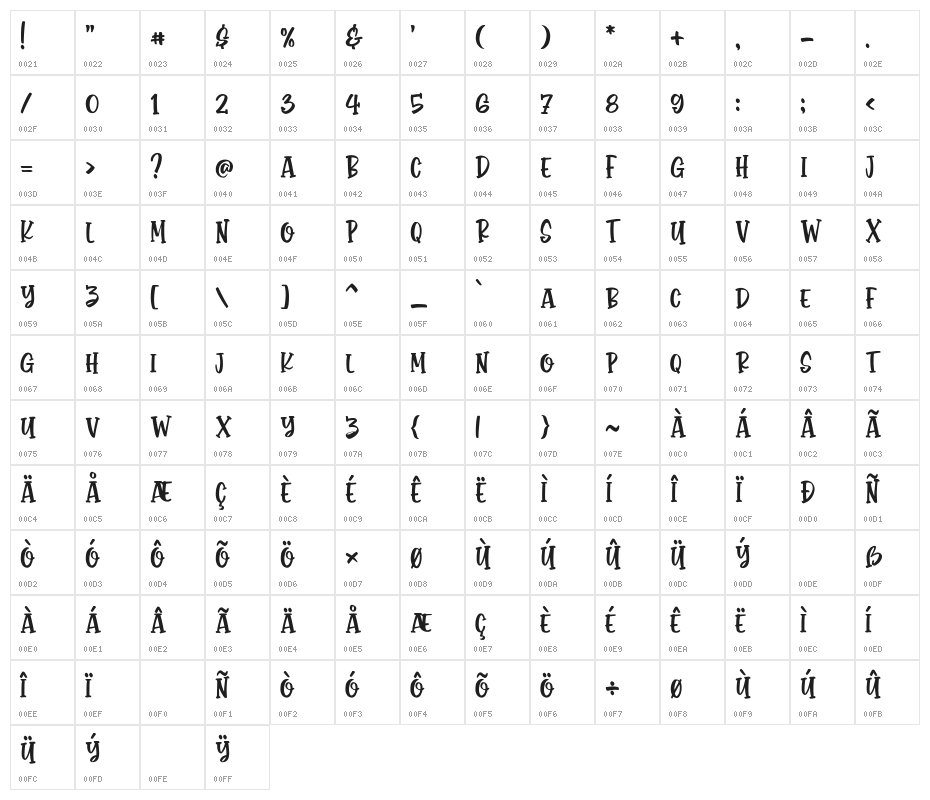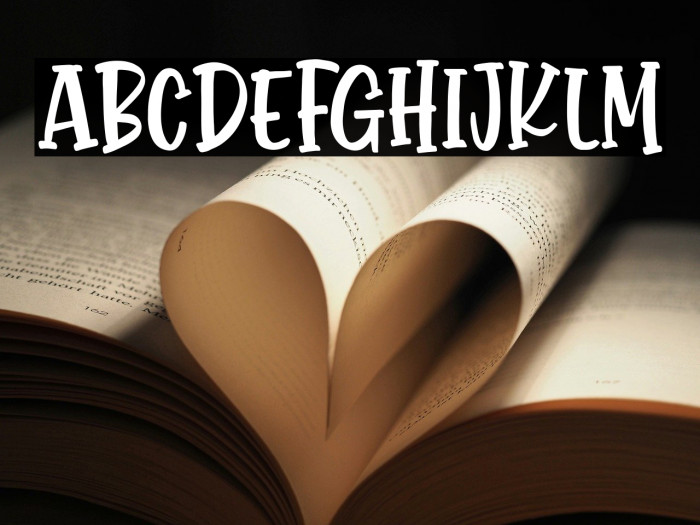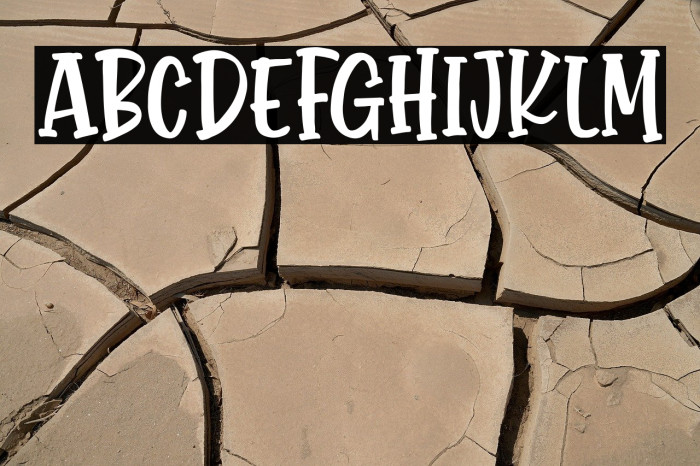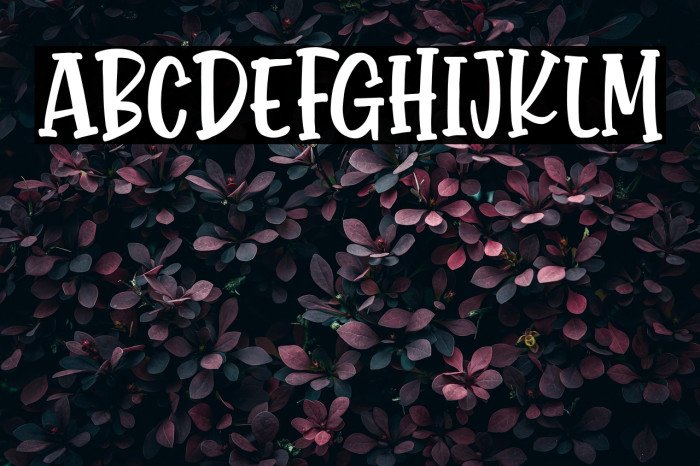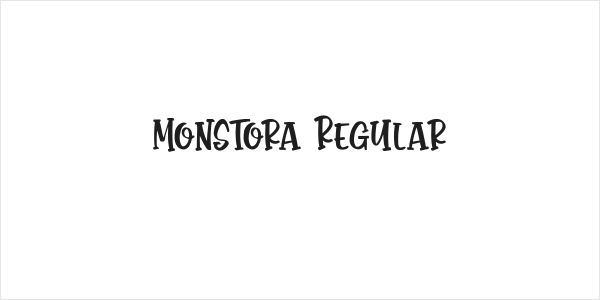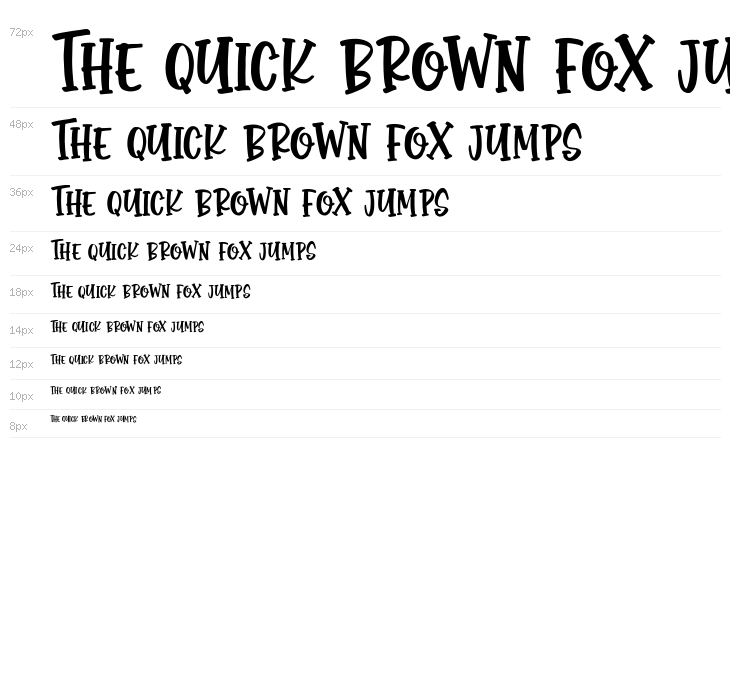
Monstora Regular Font
Monstora Regular Description
This playful and energetic font features bold, rounded characters with a hand-drawn aesthetic. The letters have a whimsical flair, with varying stroke widths that add a sense of movement and personality. The uppercase and lowercase letters maintain a consistent style, while the numerals and special characters complement the overall design. The font's unique style makes it stand out, offering a friendly and approachable feel that is perfect for creative projects.